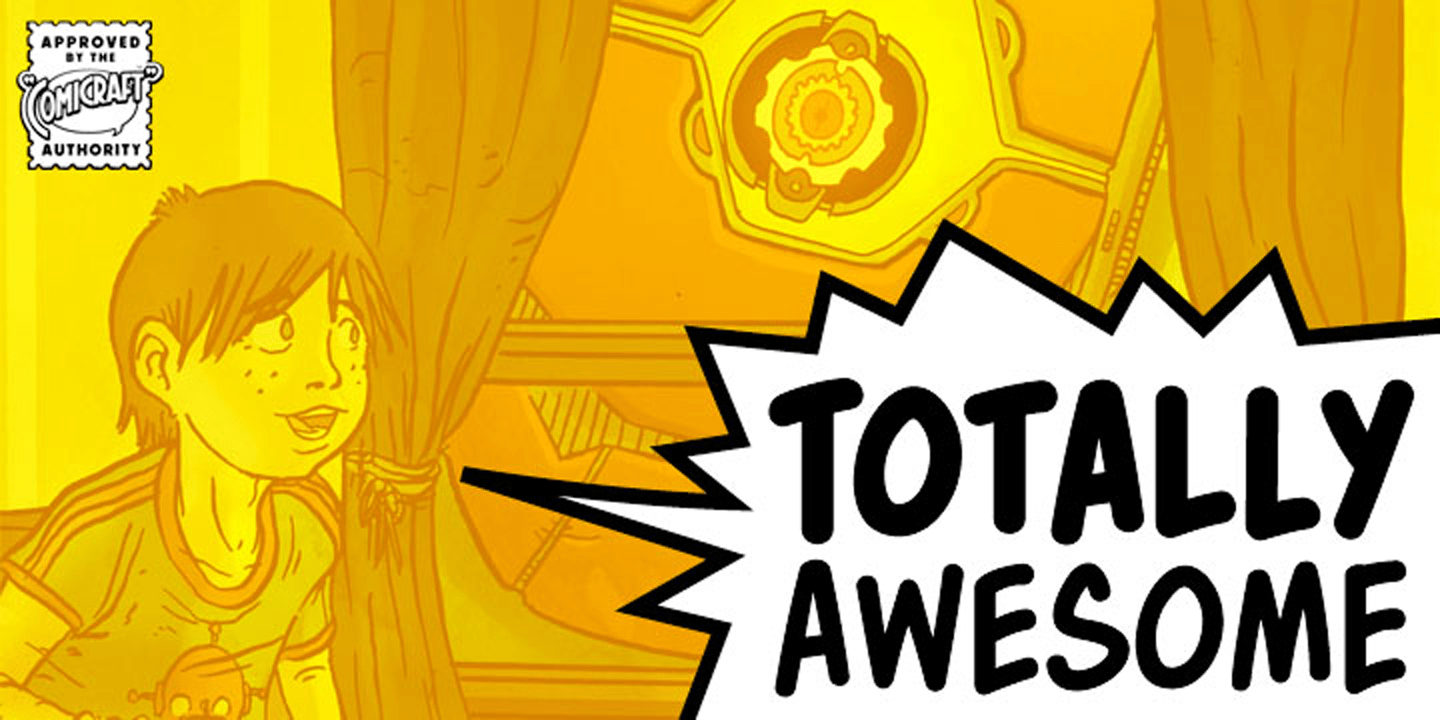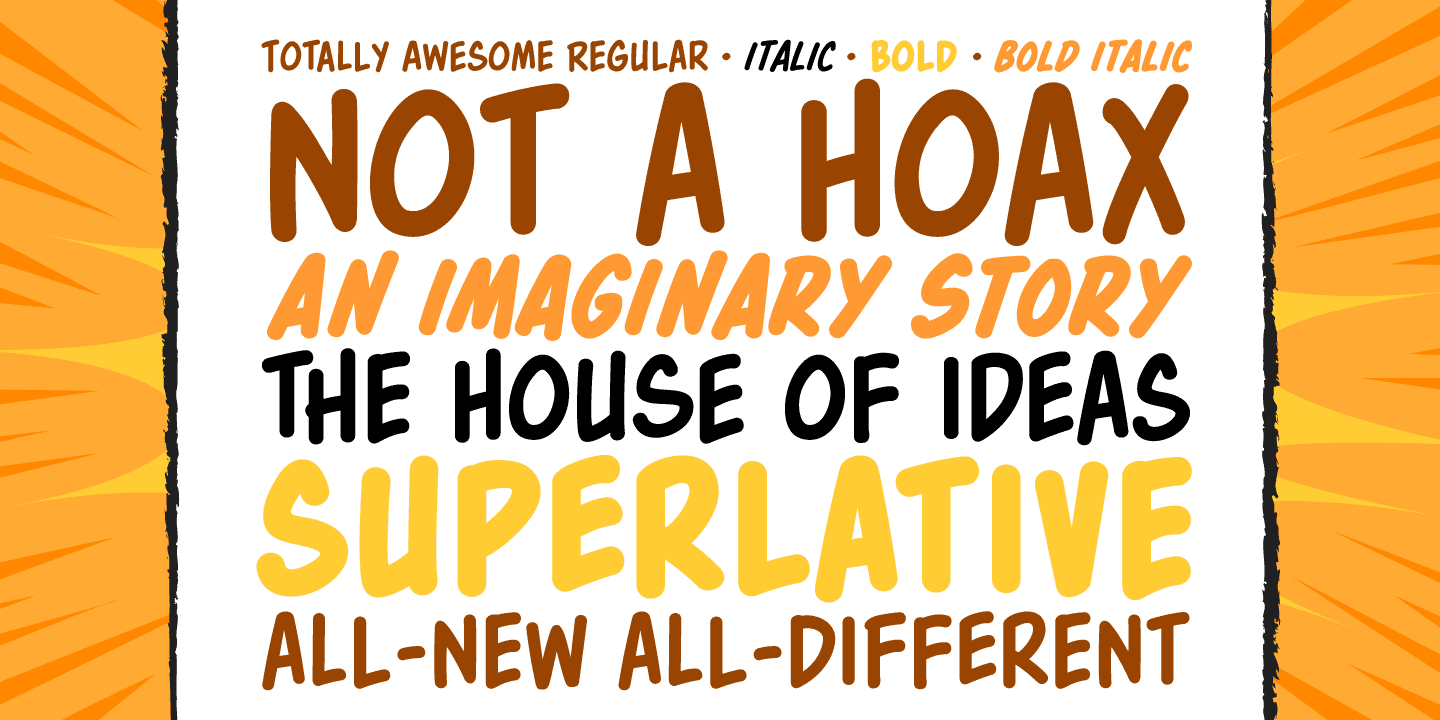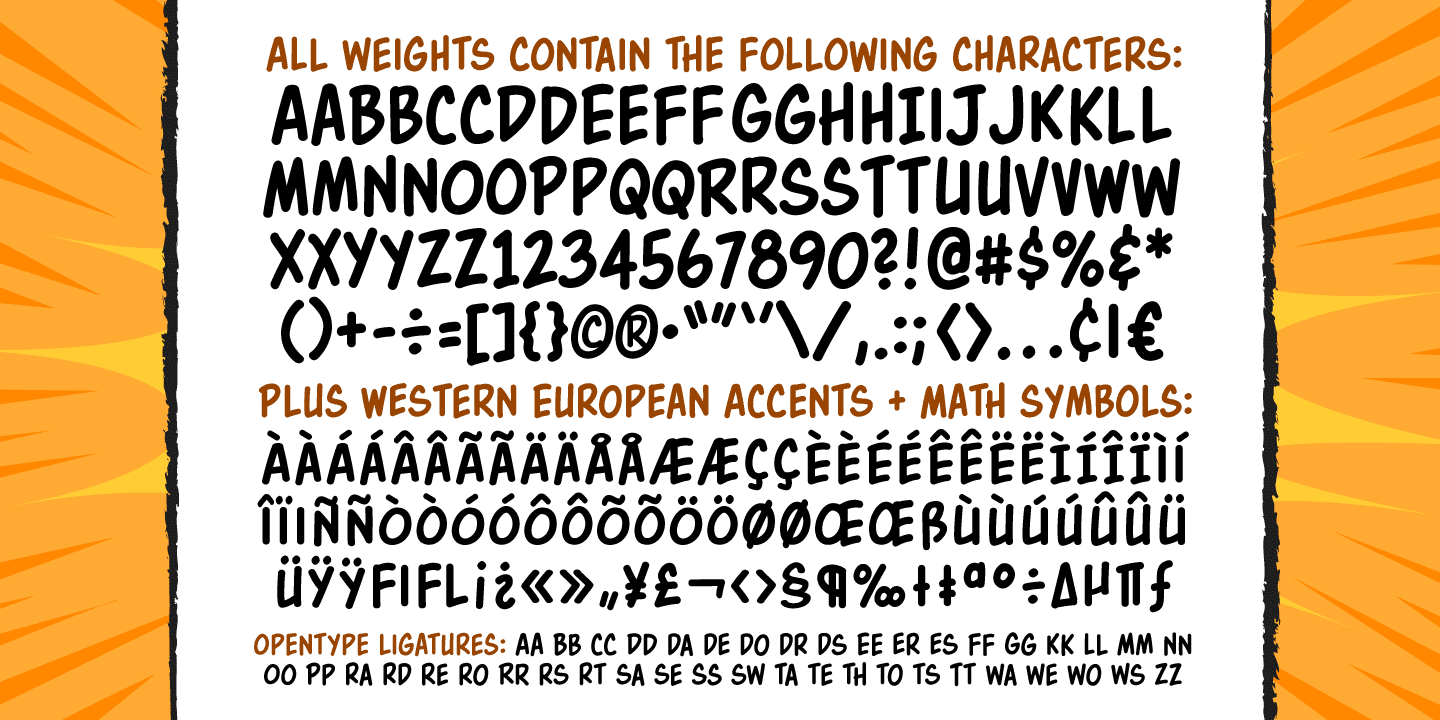
Totally Awesome
Font Family by Comicraft Fonts
Our newest release is so Totally Awesome, we haven't even found a good NAME for it yet!
It's the kind of font you'll splash all over your covers and title pages to call out FINAL BATTLES WHEN ALL-NEW ALL-DIFFERENT TITANS CLASH! It's gonna grab your readers and pull them into your own special house of ideas!
The story this font wants to tell you is NOT a what if?, NOT a hoax, not an imaginary story. It's Uncanny, it's Amazing, it's Incredible, Invincible, it's Mighty, Superlative and Wondrous. It's ready to Assemble, it's TOTALLY AWESOME!